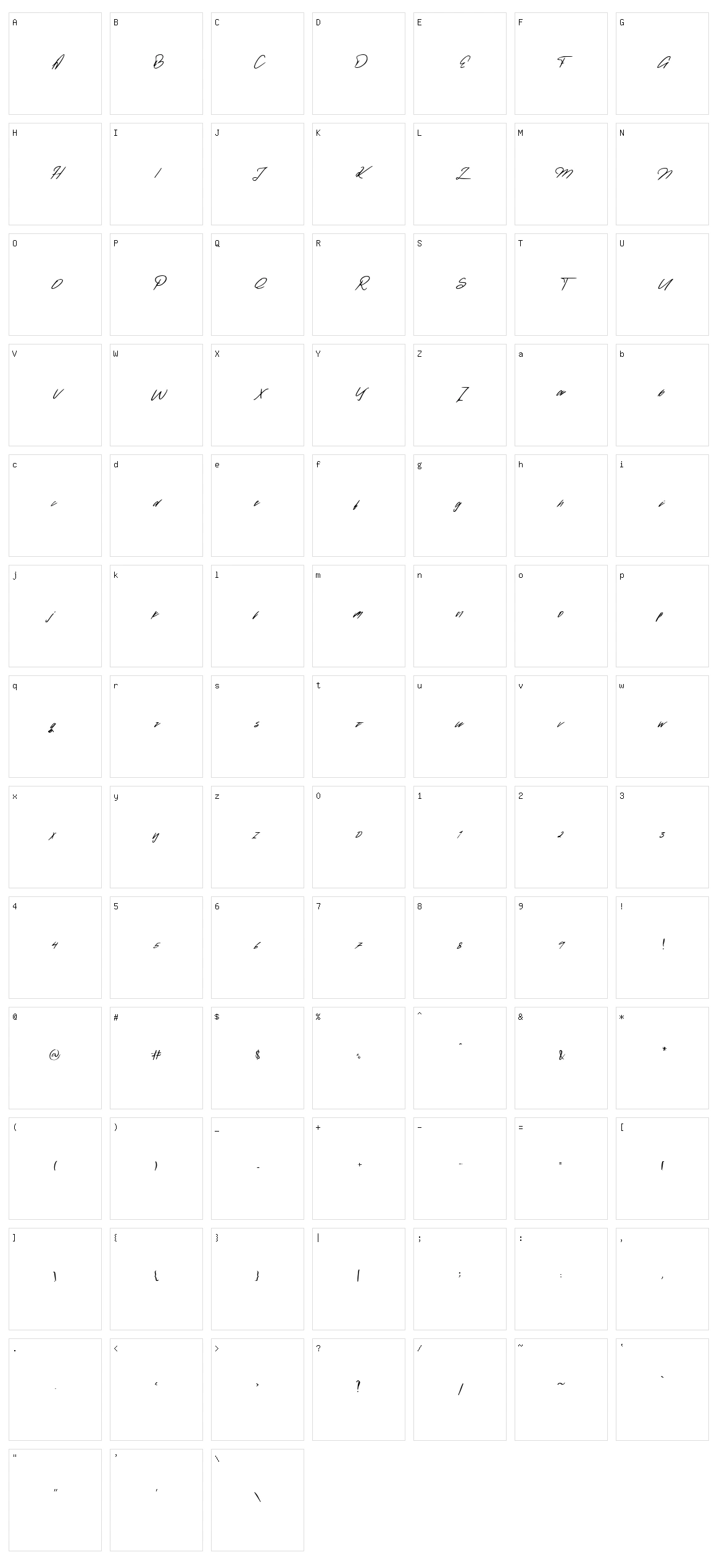
The free font Soundtrack is carefully designed by Mariyana, showcasing a thoughtful balance of creativity and usability and falls under the Script font style. When you download the ZIP file, it contains only 24.71 KB of font files, making it lightweight and quick to download. Please review the license details below to understand permitted usage and distribution rights. If license information is not available, we recommend using this font for personal projects only or contacting the author directly for commercial usage permissions.